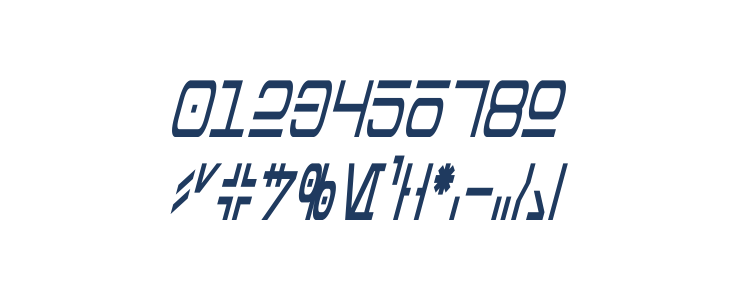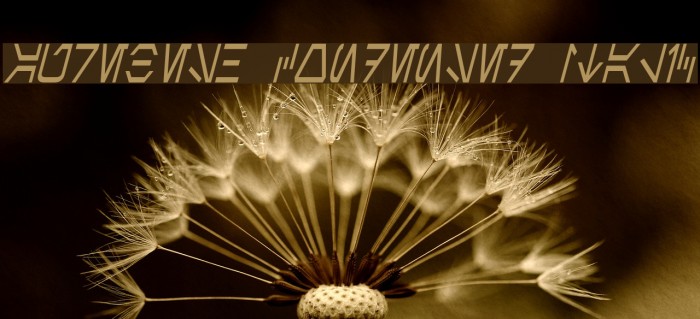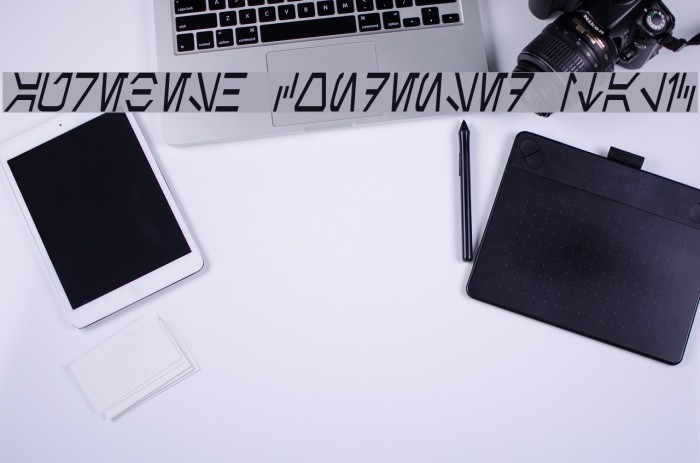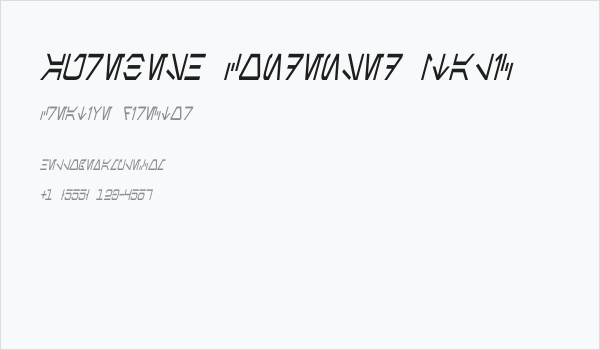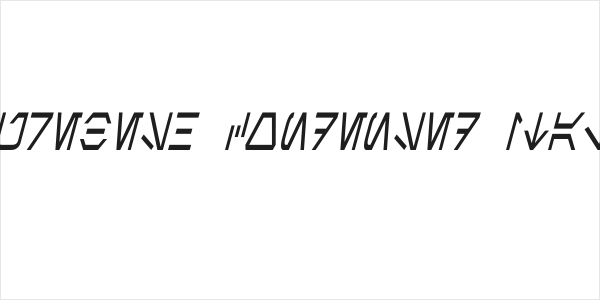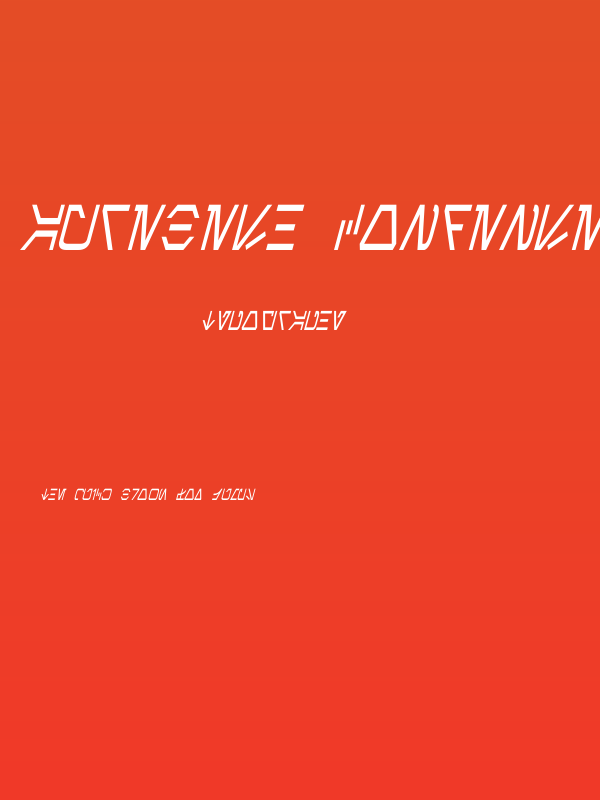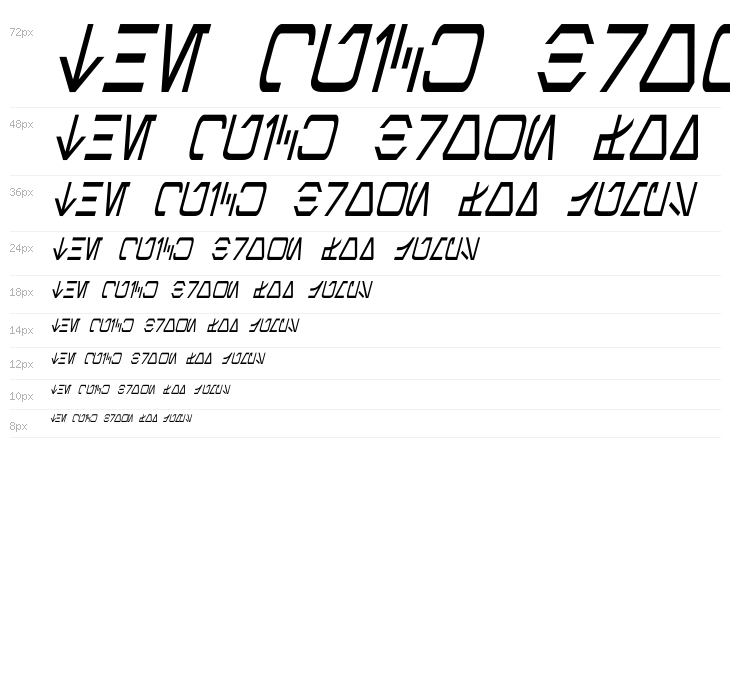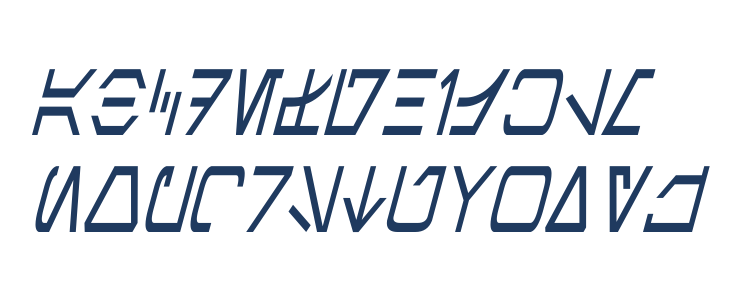
Aurebesh Condensed Italic Font
This font features a futuristic and angular design, reminiscent of alien or sci-fi scripts. The characters are sharply defined with a condensed and italicized style, giving a sense of motion and urgency. The strokes are consistent in thickness, providing a uniform appearance across all characters. The design is highly stylized, with each letter and number exhibiting unique geometric shapes that deviate from traditional Latin scripts. This font is particularly suitable for creative projects that require a distinct, otherworldly aesthetic.
| Use Case | Logos, Headlines, Display text |
| Proposed Projects | Ideal for sci-fi themed designs, video game interfaces, movie posters, and branding for tech companies. |